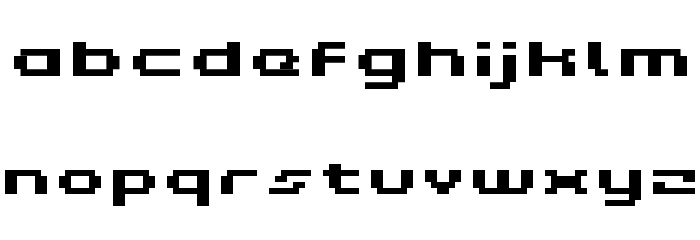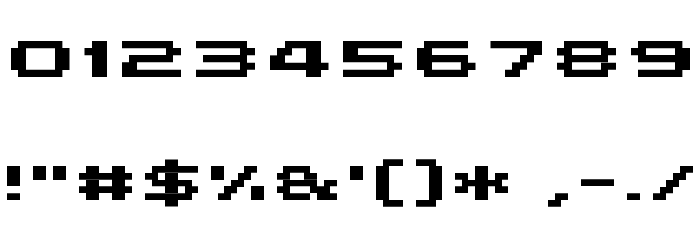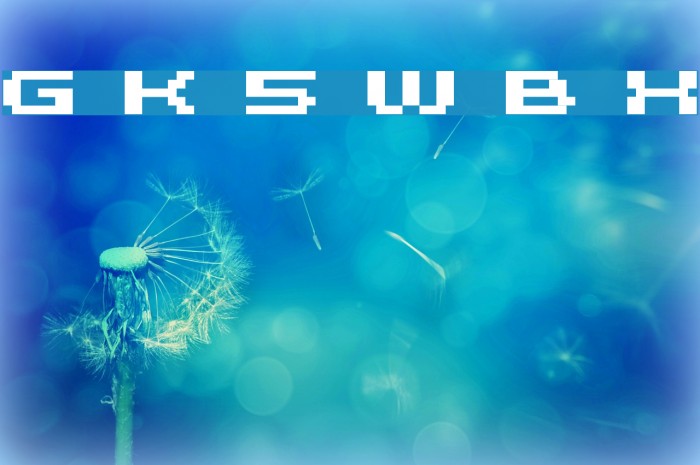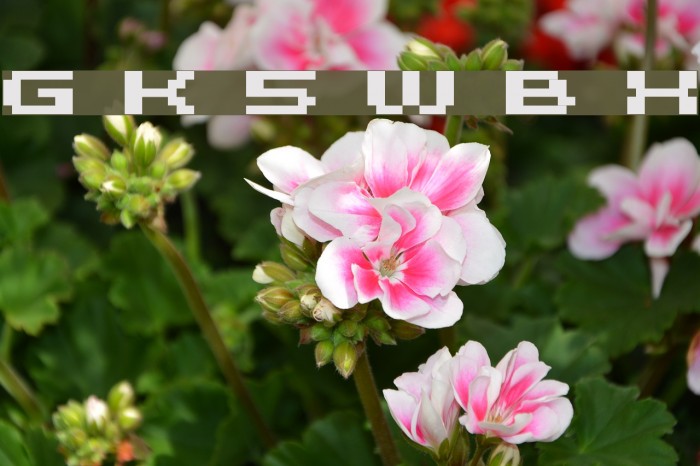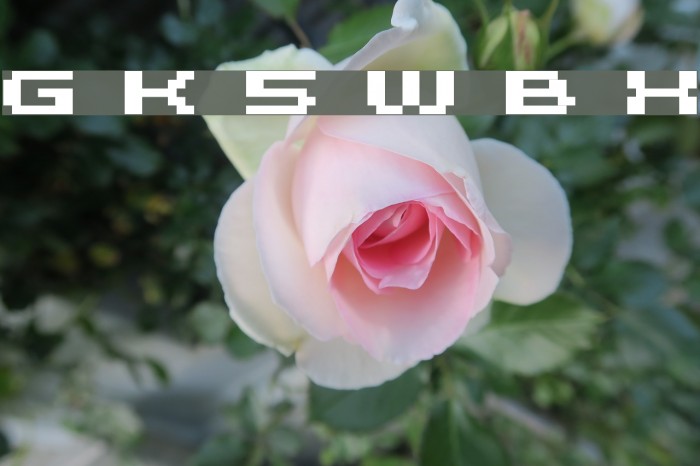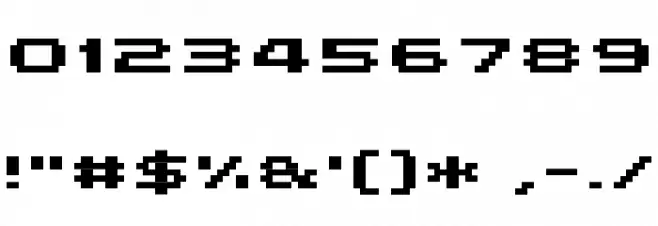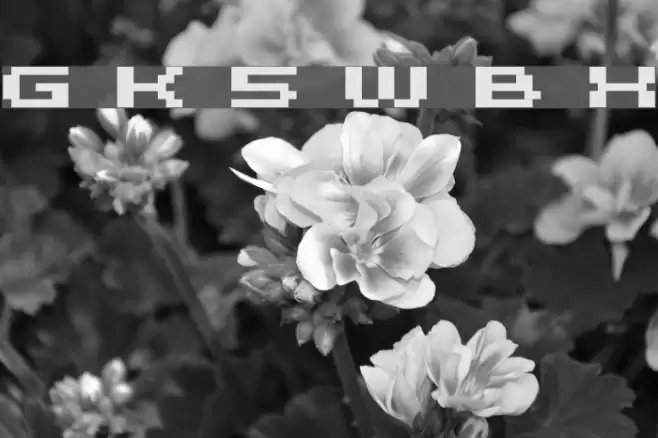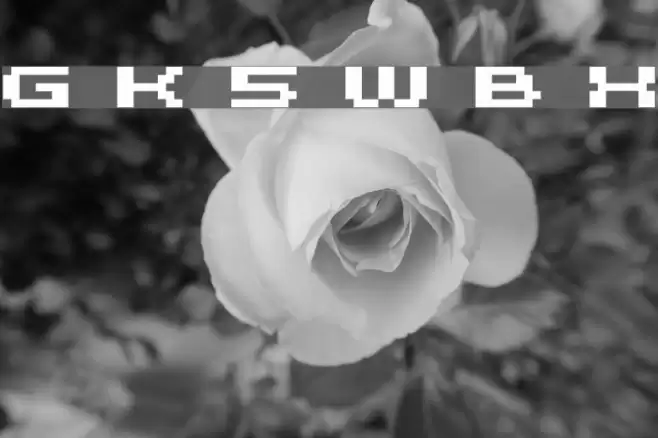
Grixel Kyrou 5 Wide Bold Xtnd Font
This font features a bold, pixelated style reminiscent of early digital and arcade aesthetics. The characters are uniformly wide, with a blocky appearance that emphasizes clarity and simplicity. Each letter and number is constructed with straight lines and right angles, creating a geometric and structured look. The font maintains a consistent height across all characters, contributing to a cohesive and organized visual presentation. Its retro charm is ideal for projects that aim to evoke nostalgia or a vintage digital feel. The special characters are designed to match the boldness and pixelated nature of the alphabet and numerals, ensuring a harmonious overall appearance.
- Proposed Projects: Ideal for video game design, retro-themed posters, digital art, and any project seeking a vintage arcade feel.
- Width: Expanded
- Overall Style: Vintage